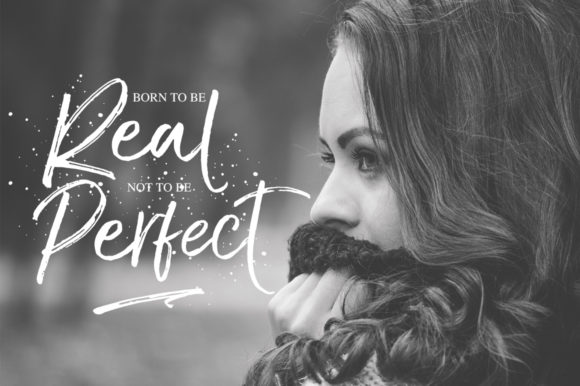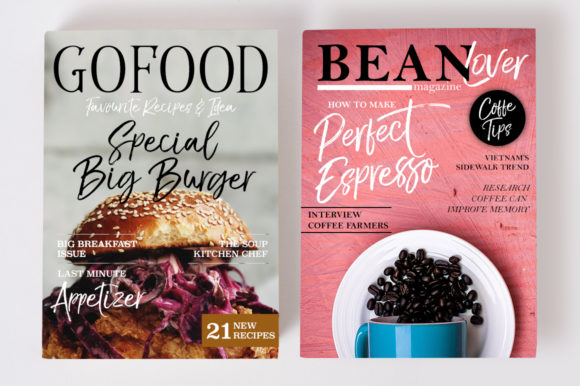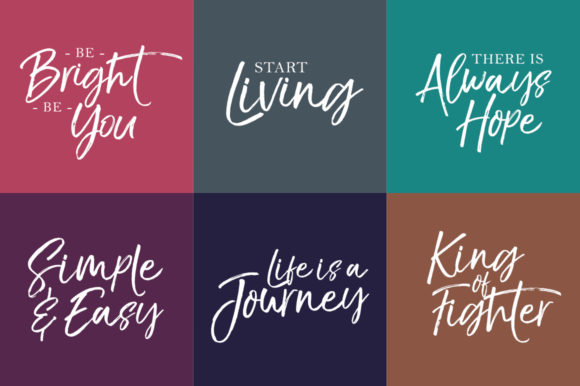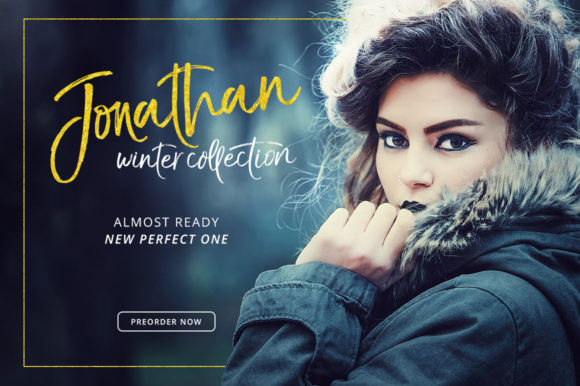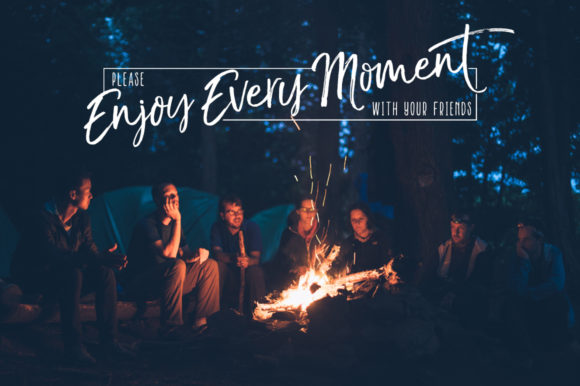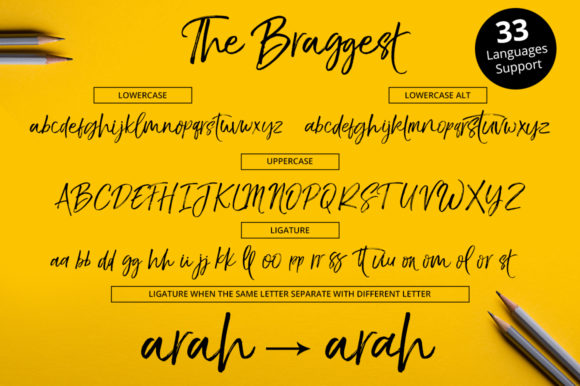
The Braggest Font
About The Braggest Font
The Braggest is a stunning handwritten font with an incredible feel. It will add a bold and contemporary charm to any design project!